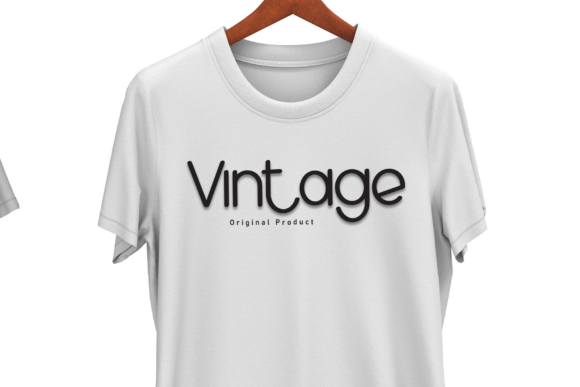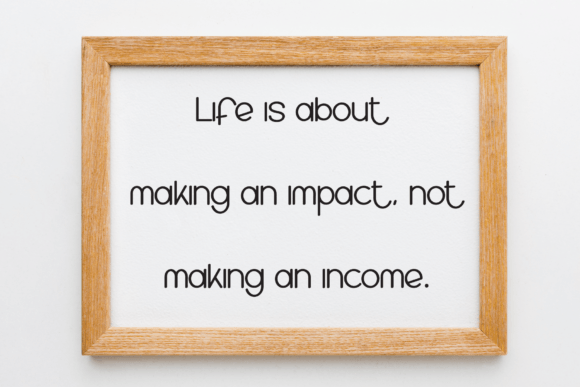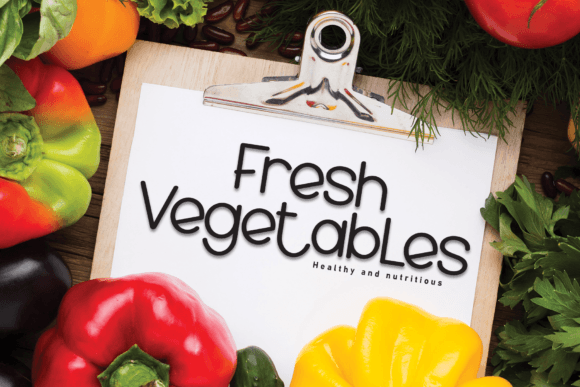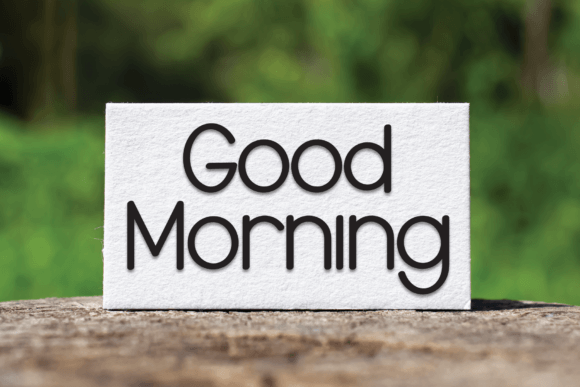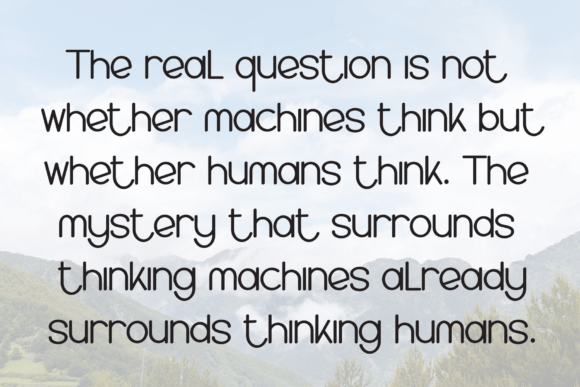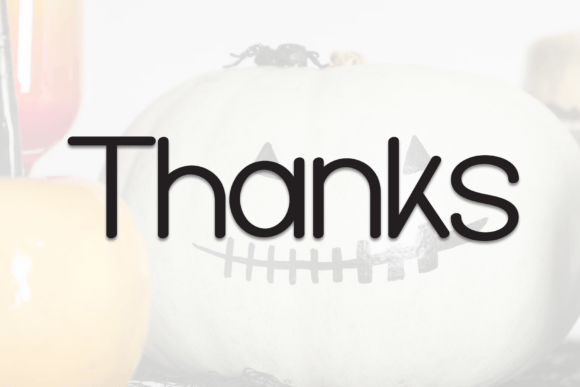
Introducing the Ghost Pumpkin Font: A Sweet and Friendly Handwritten Delight
Are you a designer or crafter looking for a font that can add a touch of warmth and personality to your projects? Look no further than the Ghost Pumpkin Font! This sweet and friendly handwritten font is perfect for a wide range of designs, from seasonal crafts to everyday branding. In this article, we’ll dive into the details of the Ghost Pumpkin Font and explore how it can elevate your creative projects.
The Characteristics of Ghost Pumpkin Font
Ghost Pumpkin is a handwritten font that boasts a natural and unique style. Its irregularities and quirks give it a charming, homemade feel that’s perfect for designs that require a personal touch. The font’s sweet and friendly vibe makes it an excellent choice for projects that aim to evoke a sense of warmth and approachability.
What Makes Ghost Pumpkin Font So Versatile?
The Ghost Pumpkin Font is incredibly versatile, making it suitable for a wide range of designs. Its unique style can be used to create:
• Seasonal crafts: Add a touch of autumnal charm to your Halloween or Thanksgiving designs with the Ghost Pumpkin Font.
• Branding and packaging: Use the font to create custom logos, labels, and packaging that stands out from the crowd.
• Invitations and greeting cards: The font’s friendly and approachable style makes it perfect for creating invitations, greeting cards, and other paper crafts.
• Digital art and illustrations: The Ghost Pumpkin Font can be used to add text to digital art, illustrations, and graphics, making it a great addition to any designer’s toolkit.
The Possibilities are Endless!
The only limit to using the Ghost Pumpkin Font is your imagination! With its natural and unique style, you can create designs that are truly one-of-a-kind. Whether you’re a designer, crafter, or DIY enthusiast, this font is sure to inspire you to try new things and push the boundaries of your creativity.
Tips for Using the Ghost Pumpkin Font
To get the most out of the Ghost Pumpkin Font, here are a few tips to keep in mind:
• Experiment with different sizes and colors: The font looks great in a variety of sizes and colors, so don’t be afraid to try out different combinations.
• Pair it with other fonts: The Ghost Pumpkin Font pairs well with other handwritten fonts, as well as serif and sans-serif fonts.
• Use it for headlines and body text: The font is suitable for both headlines and body text, making it a great choice for creating cohesive designs.
In conclusion, the Ghost Pumpkin Font is a sweet and friendly handwritten font that’s perfect for designers and crafters looking to add a touch of warmth and personality to their projects. With its natural and unique style, this font is incredibly versatile and can be used for a wide range of designs. So why wait? Download the Ghost Pumpkin Font today and let your creativity shine!